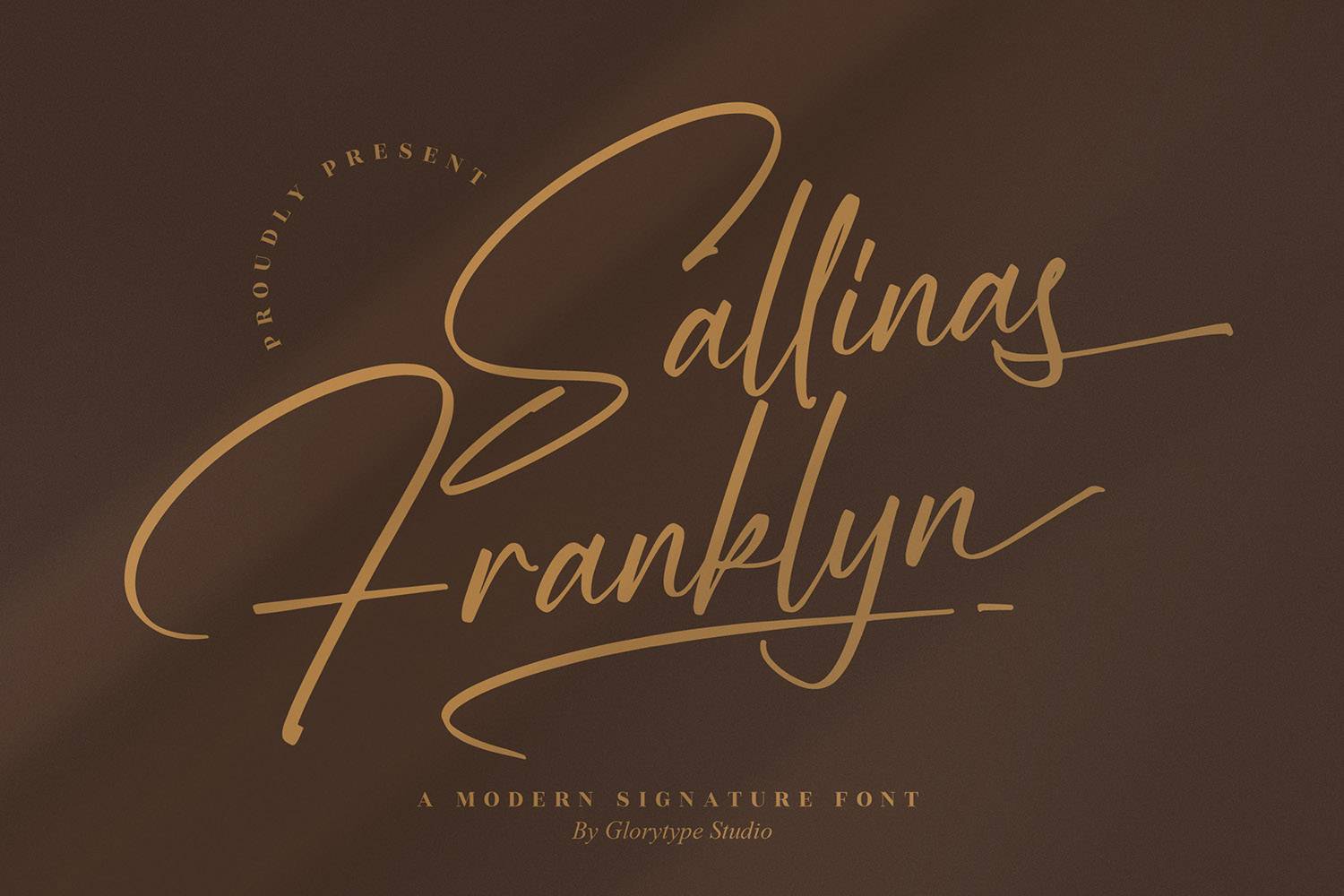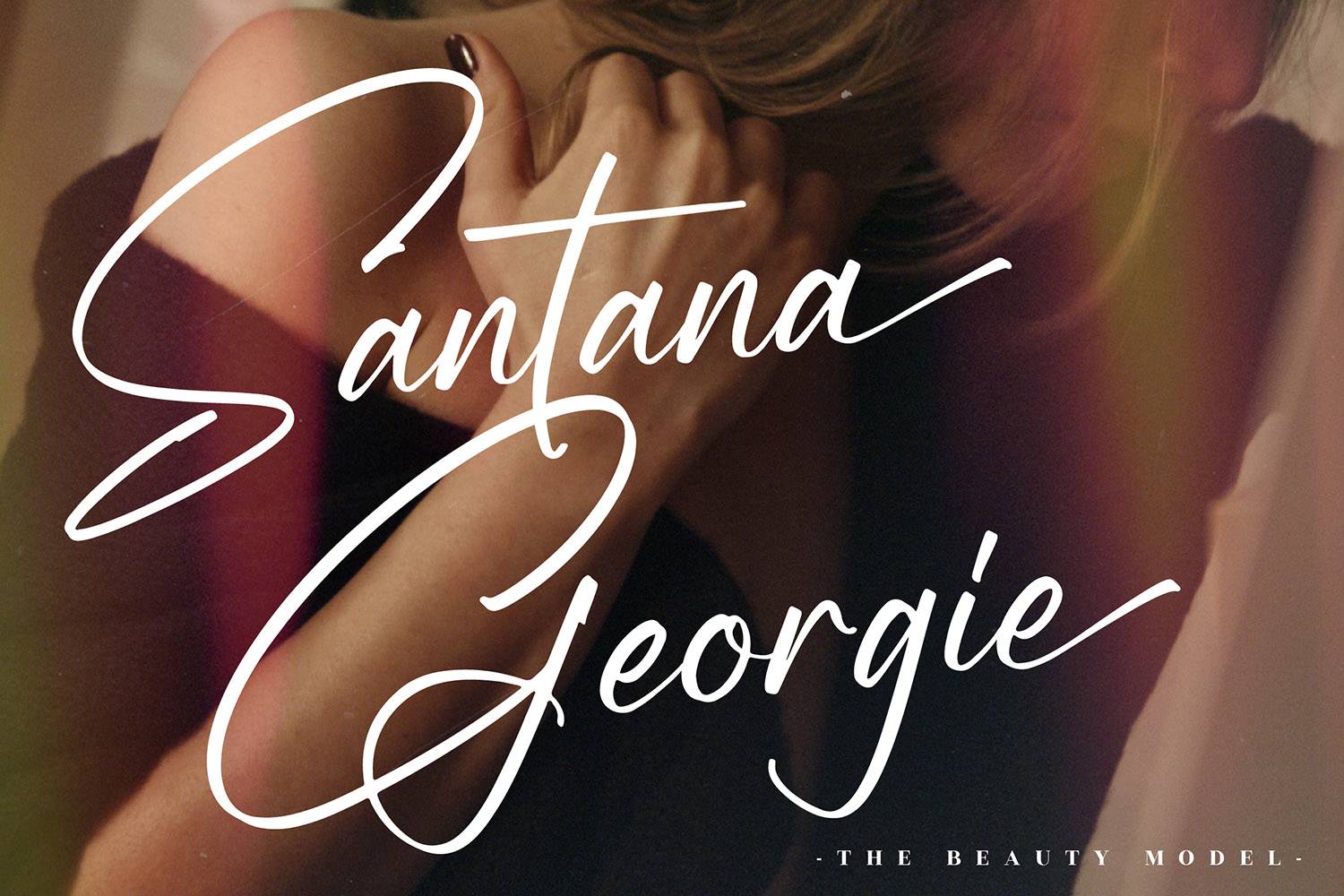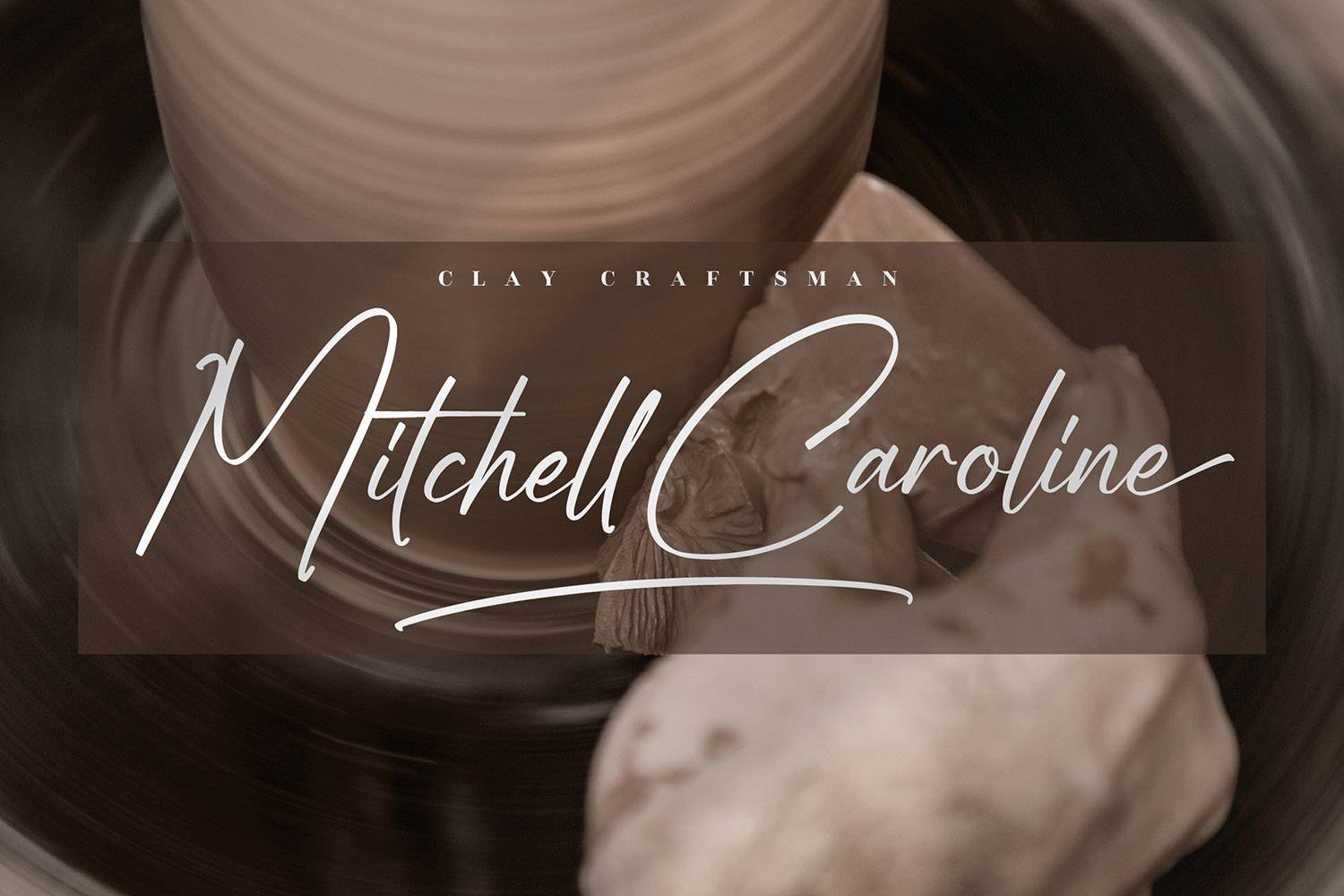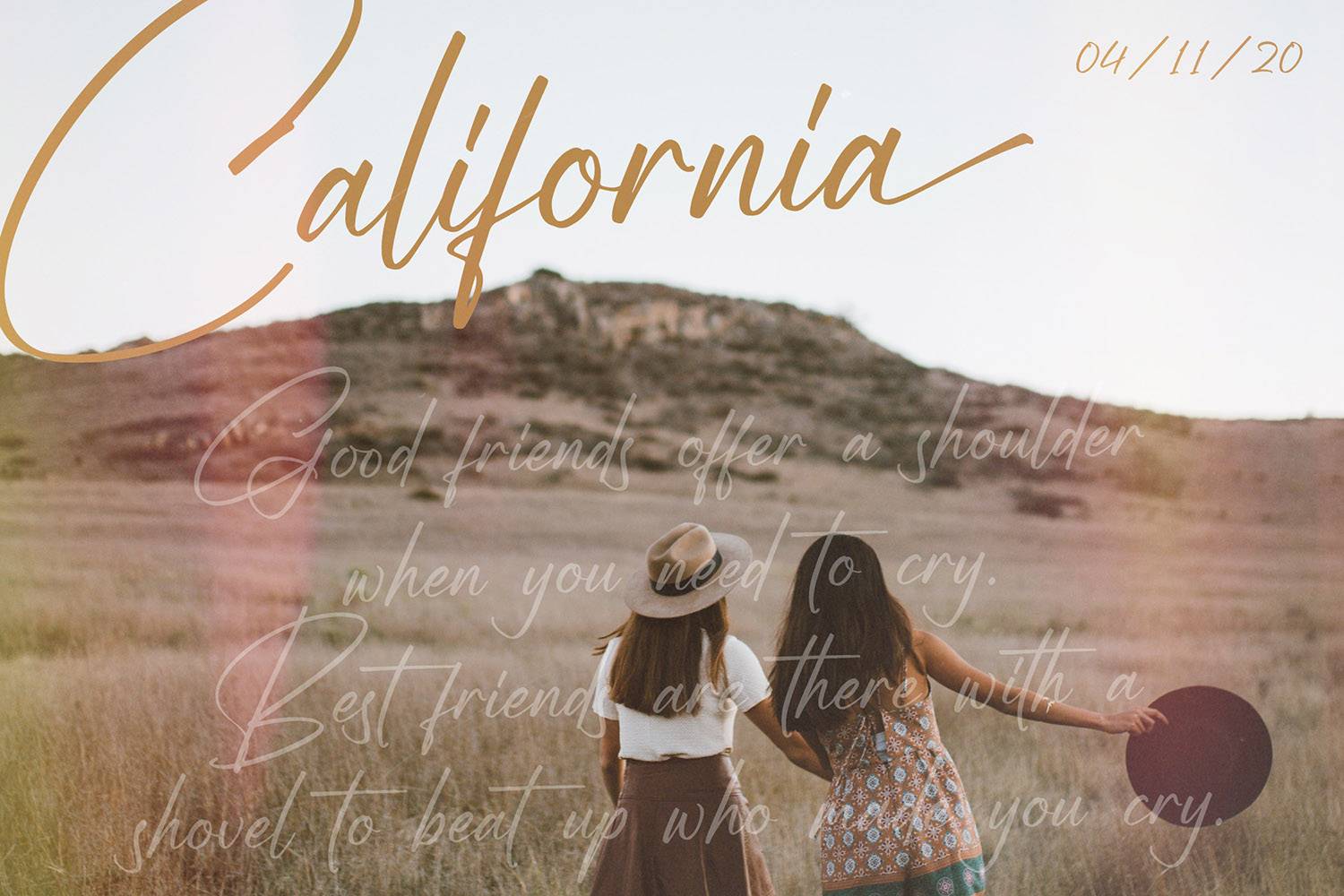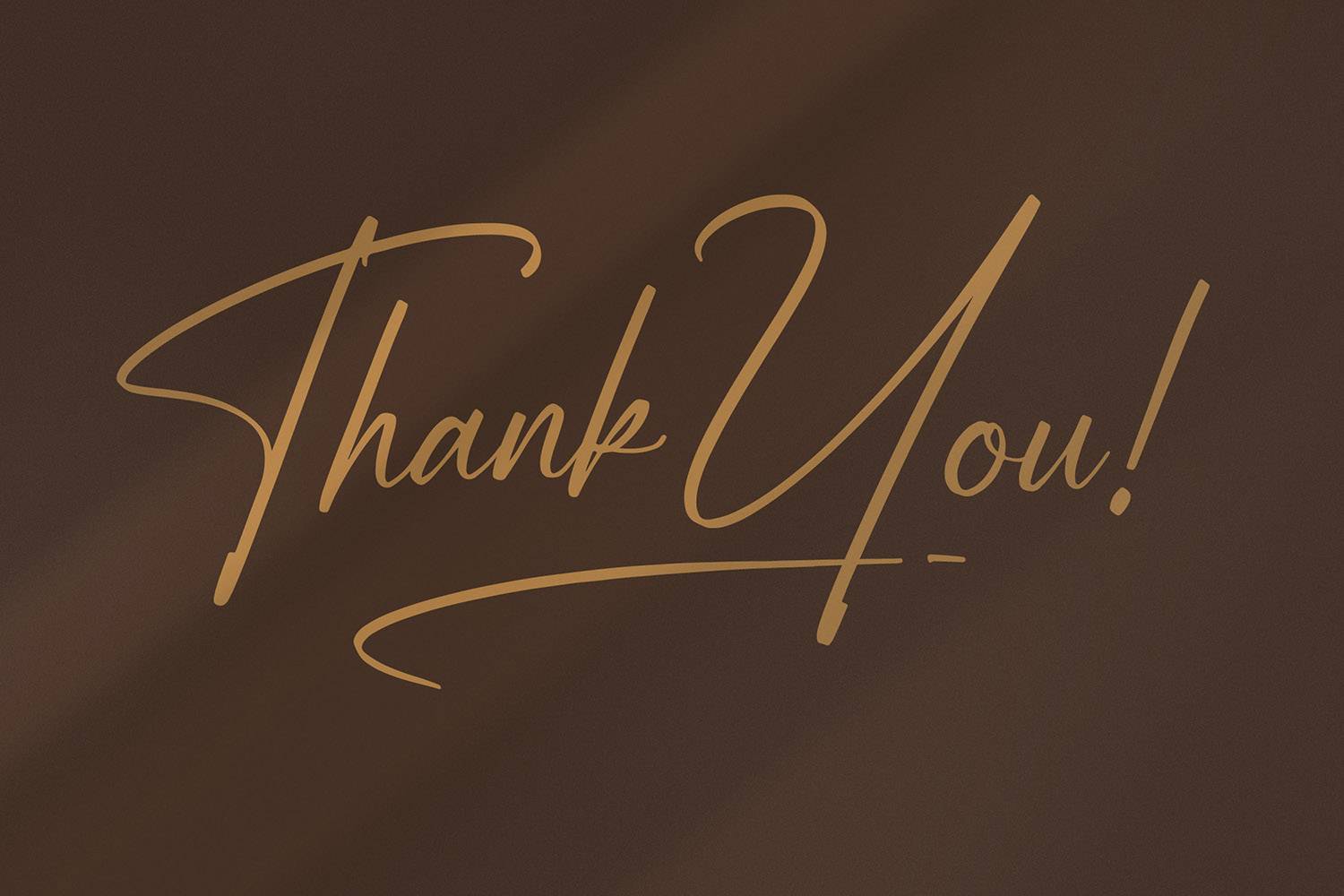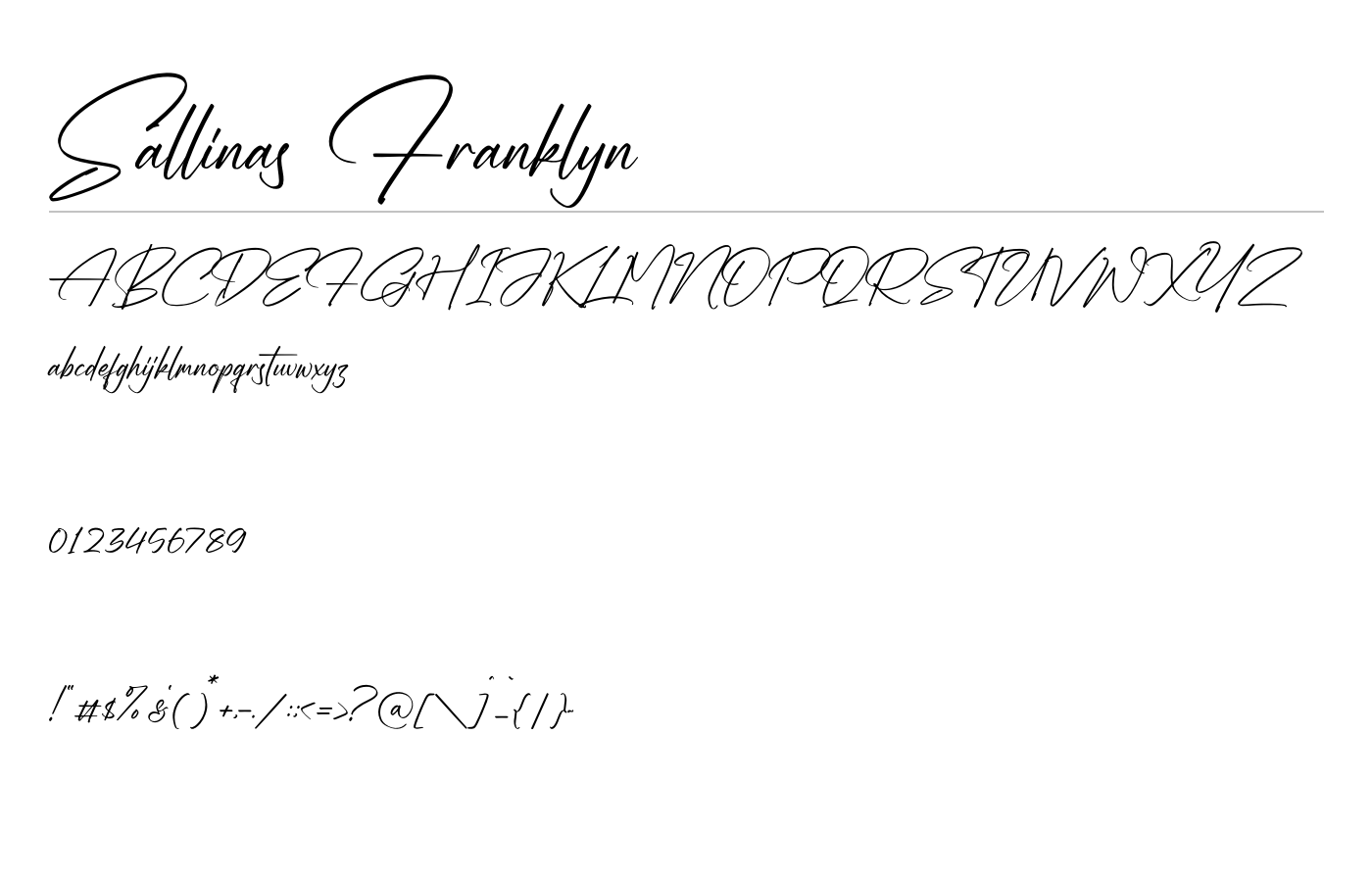
Sallinas Franklyn is an elegant, thin script font with a handwritten, calligraphic style that features fluid, slightly slanted letterforms and delicate curves. Its fine lines and airy spacing give it a graceful, sophisticated look, making it perfect for luxury branding, wedding invitations, and stylish editorial design where a personal, refined touch is desired. This font works best in headlines or short text to convey elegance and charm without sacrificing readability.
Sallinas Franklyn Font
About Sallinas Franklyn Font